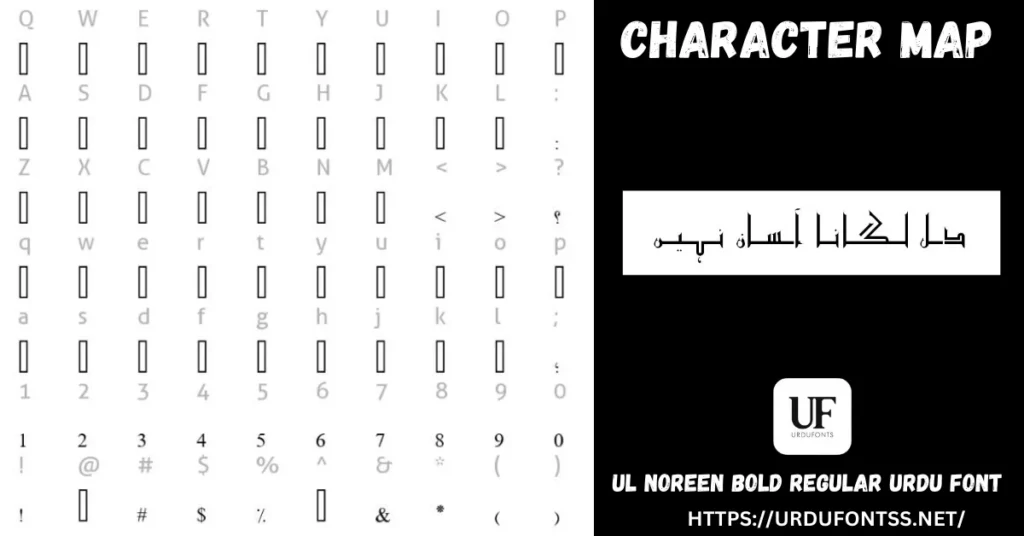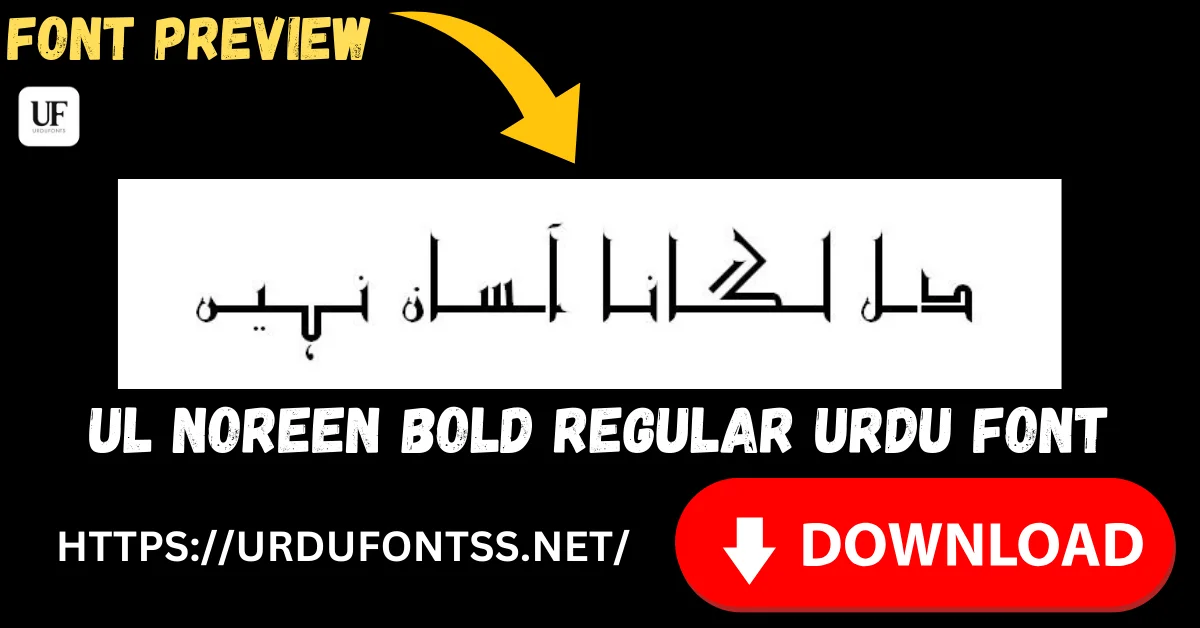
UL Noreen Bold Regular Font – The Bold & Readable Urdu Typeface for Impactful Designs
What is UL Noreen Bold Regular Font?
UL Noreen Bold Regular is a popular choice among designers and writers who need high-quality Urdu fonts with a bold and clear appearance. It is designed to deliver impact without sacrificing readability, which makes it suitable for both print and digital platforms. Whether you are creating a heading for a poster, typing a document, or designing a social media graphic, this font ensures your Urdu text stands out.
Why Bold Fonts Matter in Urdu Typography
Bold fonts serve a specific purpose — they grab attention and establish hierarchy in text. In Urdu typography, where many traditional fonts are designed with thin, calligraphic strokes, a good bold font offers a welcome contrast. UL Noreen Bold Regular fills this role by providing a typeface that is strong and prominent while still maintaining the natural flow of Urdu script. It works well for headings, highlighted phrases, and any content that needs to command attention immediately.
Who Should Use UL Noreen Bold Regular Font?
This font caters to a wide range of users who need a dependable bold Urdu typeface. Here is who benefits the most:
Graphic Designers
Urdu Writers & Bloggers
Students & Educators
For project titles, presentation headings, and classroom display materials, bold fonts add a professional and organized look. UL Noreen Bold Regular helps students create assignments that appear polished and well-structured.
Social Media Content Creators
Why UL Noreen Bold Regular is a Trusted Font?
Top 7 Use Cases of UL Noreen Bold Regular Font
Here are the most practical applications for this bold Urdu font:
- Poster headlines and event banners
- YouTube thumbnails and video title cards
- Instagram and Facebook social media graphics
- WordPress blog post headings and featured text
- Document titles and formal report headings
- Educational project covers and presentation slides